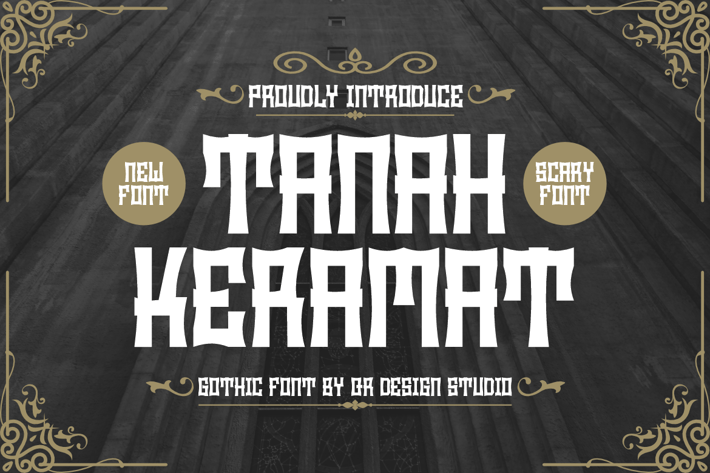
Tanah Keramat - Gothic Font
Tanah Keramat - Gothic Font is a bold and authentic display font.
The font is suitable for any branding project like dark, halloween, logo, sport, and many more.